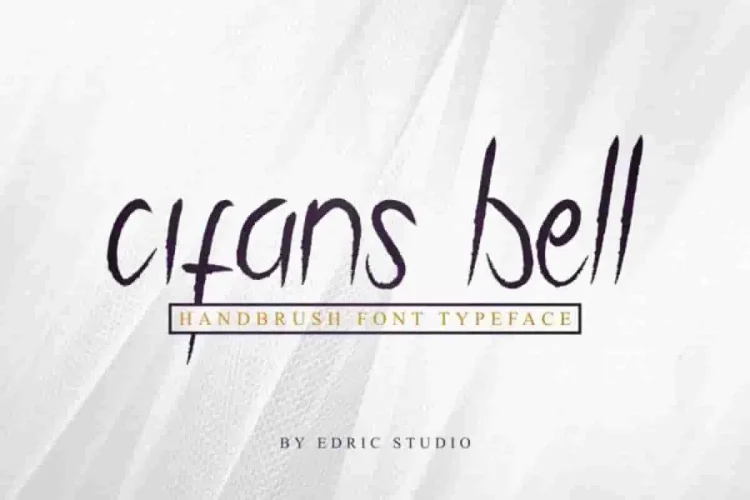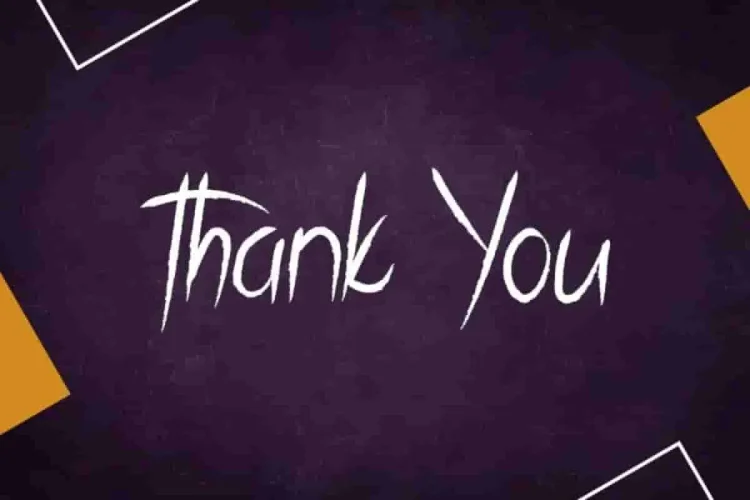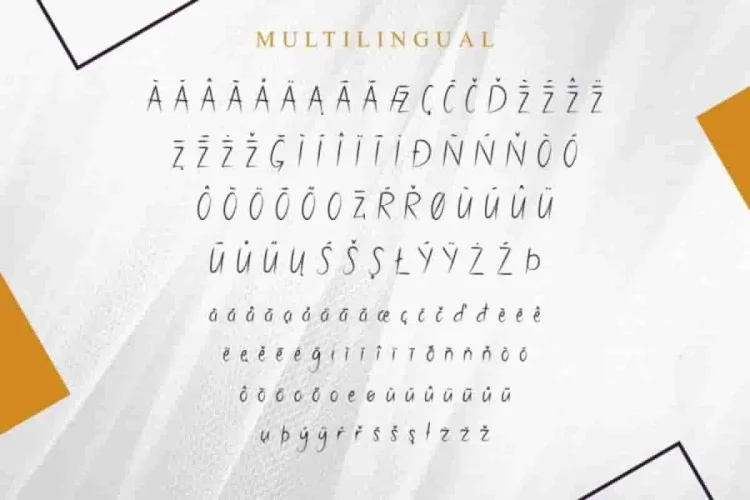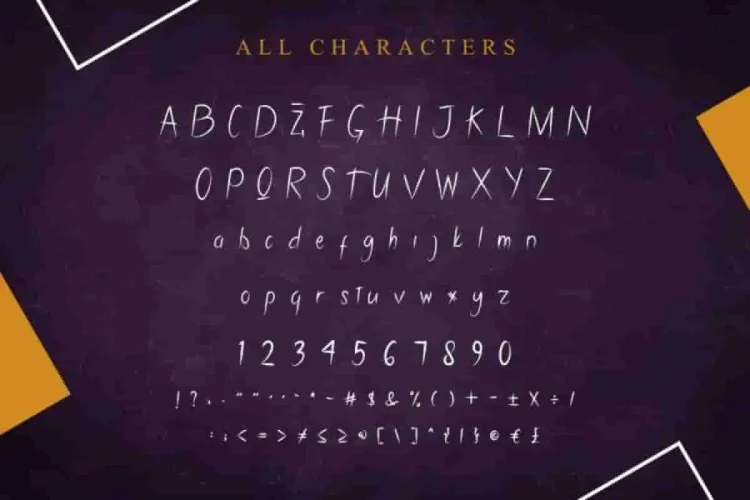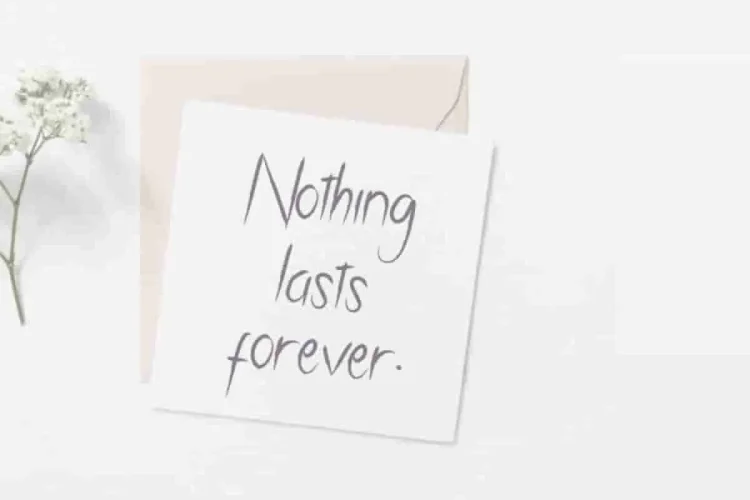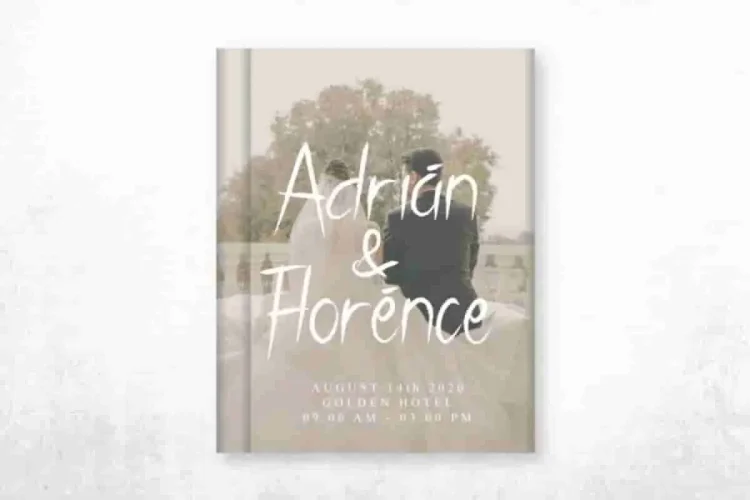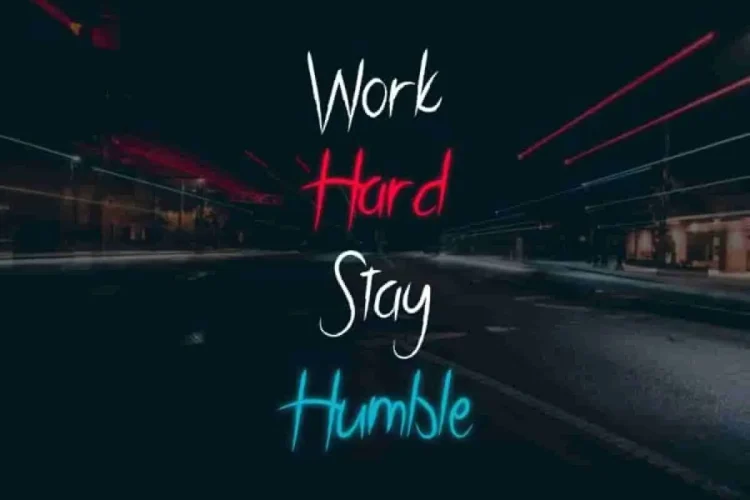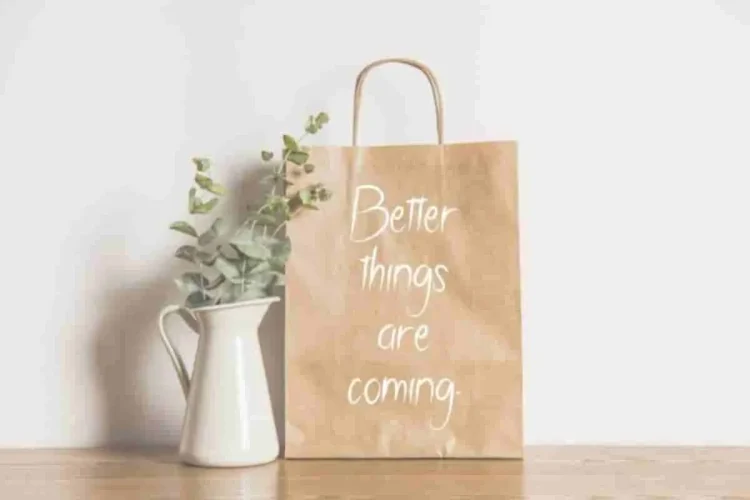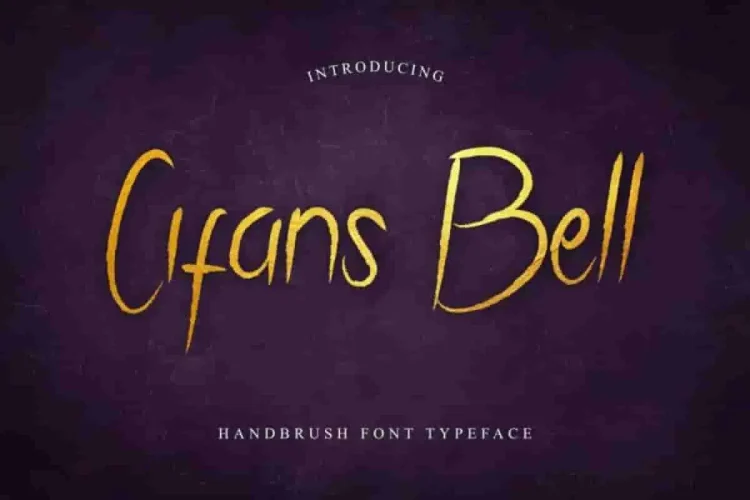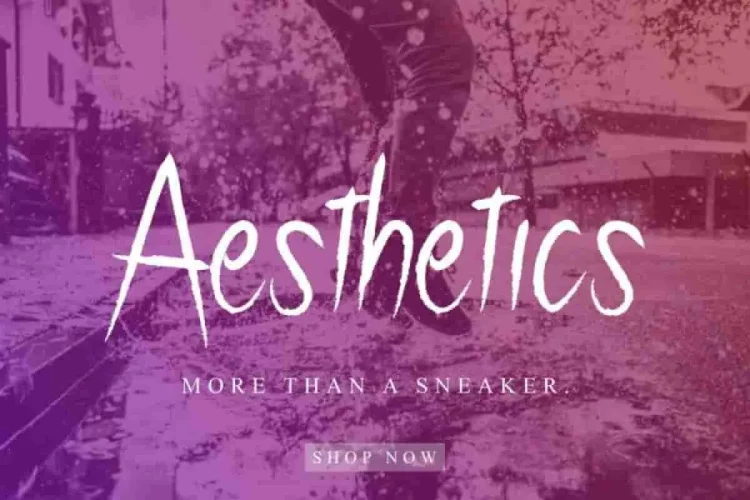
Cifans Bell HandBrush Font
Cifans Bell Demo
It is us again : EDRIC Studio. This time, we proudly introduce the newest font Cifans Bell Brush Font.
To begin with, Cifans Bell Brush Font was made in 2019 from Bandung and Garut, Indonesia. By our artists : Saila and Sarah Suci.
This font has a stunning handwriting style with a rough wet brush effect. Moreover, Cifans Bell combines the artistry of brush and handwritten script styles, making it versatile for countless applications.
Moreover, you can explore any of your projects with the exclusive glyphs of Cifans Bell Brush Font. Specifically, Cifans Bell works beautifully for a wide range of projects (need extended license), including : logotype, flyer, stationery, business card, signage, flyer, brochure etc. Furthermore, this font matches all categories professionals : law firm, real estate, wedding, advertisement, florist, makeup artist, musician, etc